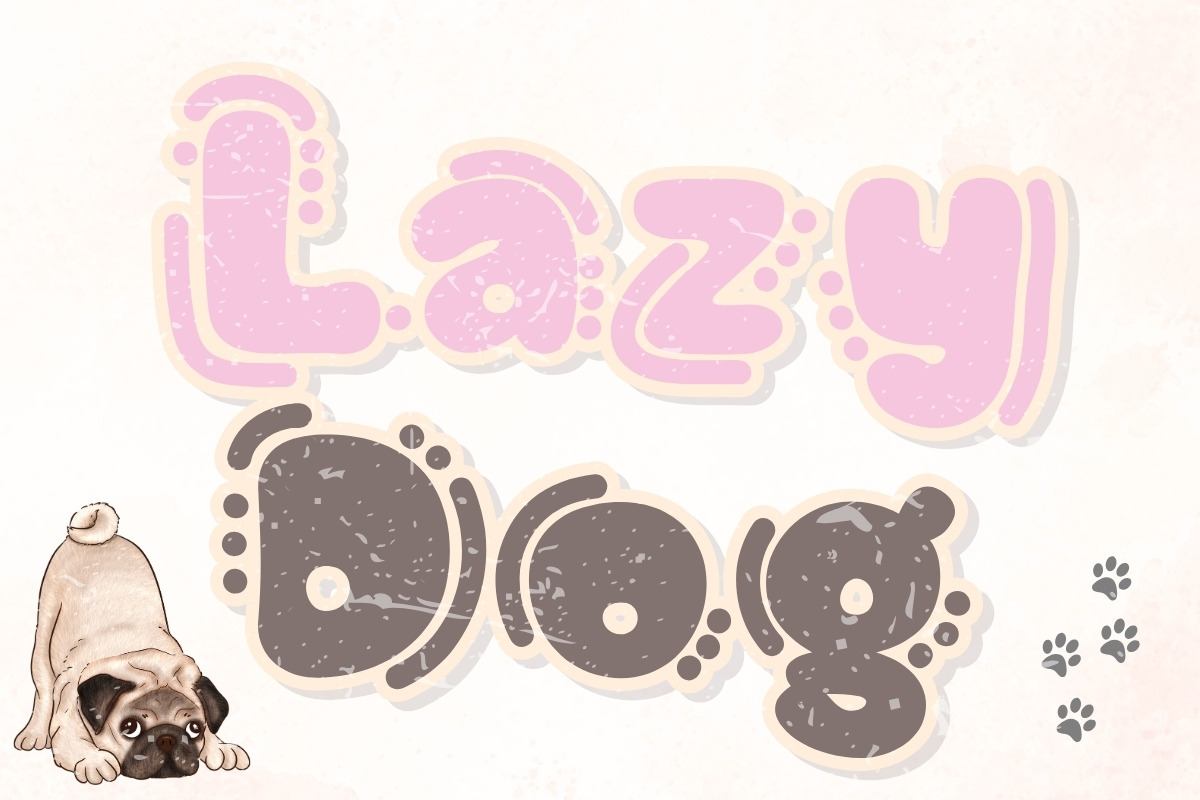
LAZY DOG - Handwritting Font Free Download is a relaxed, playful typeface that captures the essence of natural handwriting with a casual, friendly vibe. Perfect for fun branding, kids’ projects, quotes, greeting cards, and social media content, this font brings personality and approachability to any design.
With its imperfect lines and soft curves, LAZY DOG - Handwritting Font Free Download gives your work a handcrafted, authentic feel. It’s especially great for projects that aim to feel personal, cheerful, or lighthearted—whether you're designing a cozy café menu or a DIY-style logo.